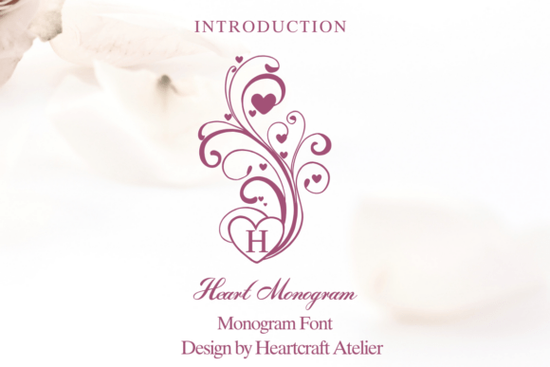
Finding the right typography for romantic or personalized projects can be tricky, especially when you need something that feels handmade but remains legible. The Heart Monogram Font is a decorative typeface designed specifically for these moments. Whether you are crafting a wedding invitation, designing a custom mug, or just journaling, this style brings a warm, personal touch to your work. It fits perfectly into the broader category of decorative typography, giving crafters and small business owners a versatile tool for their creative kits.
What projects work best with decorative monogram typography?
This specific style works exceptionally well in applications where a personal, human touch is required. It is not meant for long blocks of body text. Instead, it is ideal for short phrases, names, and initials. Here are a few ways designers and hobbyists use this style:
- Greeting cards and invitations: Perfect for wedding suites, baby showers, and anniversary cards where a romantic tone is essential.
- Personalized gifts: Adding a custom name to a tote bag, coffee mug, or wooden sign makes the item feel special and one-of-a-kind.
- Social media graphics: Use it for quote overlays on Instagram or Pinterest to create a soft, visual style that stands out in the feed.
- Journaling and scrapbooking: Great for writing headers, dates, or short memories in a physical or digital diary.
How do you pair a highly decorative font with other typefaces?
Because this typeface has a lot of visual weight and intricate swirls, it needs a quiet partner. If you use two highly decorative fonts together, your design will look cluttered and become hard to read. The best approach is to pair it with a very simple, clean sans-serif or a classic, understated serif.
For example, use the monogram style for the main title or the client's name, and use a basic, readable font for the date, time, and location details. If you are building a larger typography kit for your design business, adding the Fitz decorative font to your folder gives you an alternative option for projects that need a slightly different mood but still require a stylized look.
Is this font suitable for print-on-demand merchandise?
Print-on-demand sellers often worry about how intricate fonts will translate to physical products. The good news is that this style works very well on merchandise, provided you follow a few basic design rules. When printing on t-shirts or canvas bags, make sure the text is large enough so the thin lines do not get lost in the fabric texture.
For items like enamel pins or small stickers, you might need to slightly thicken the strokes in your vector software to ensure the details survive the manufacturing process. Always order a physical sample of your product before listing it in your shop. Seeing how the ink sits on the actual material will tell you if the lettering is crisp and legible.
What should you check before exporting your final design?
Before you send your file to the printer or publish it online, run through this quick checklist to ensure your typography looks professional:
- Convert to outlines: Always convert your text to vector shapes or outlines so the printer does not need to have the font installed on their computer.
- Check the kerning: Decorative fonts often require manual spacing adjustments. Make sure the letters are not overlapping awkwardly or sitting too far apart.
- Test the contrast: If you are using a light-colored font on a light background, it will not print well. Ensure there is high contrast between the text and the background.
- Proofread carefully: Since converting text to outlines makes it harder to edit later, double-check your spelling before finalizing the file.